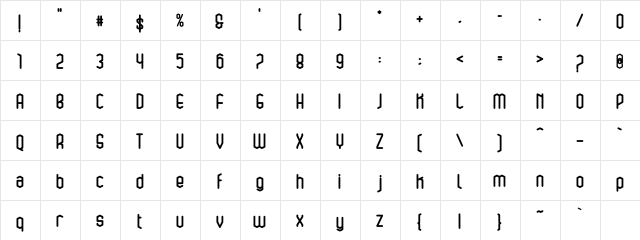
bluesquarebold Bold
Design Context for bluesquarebold Typeface
bluesquarebold is a composed and adaptable typeface that performs quietly and consistently across a wide range of design contexts. Its bold stroke weight gives it real presence on the page.
Pro Tip: Use bluesquarebold in both headline and body roles to test its range before committing to a single application.